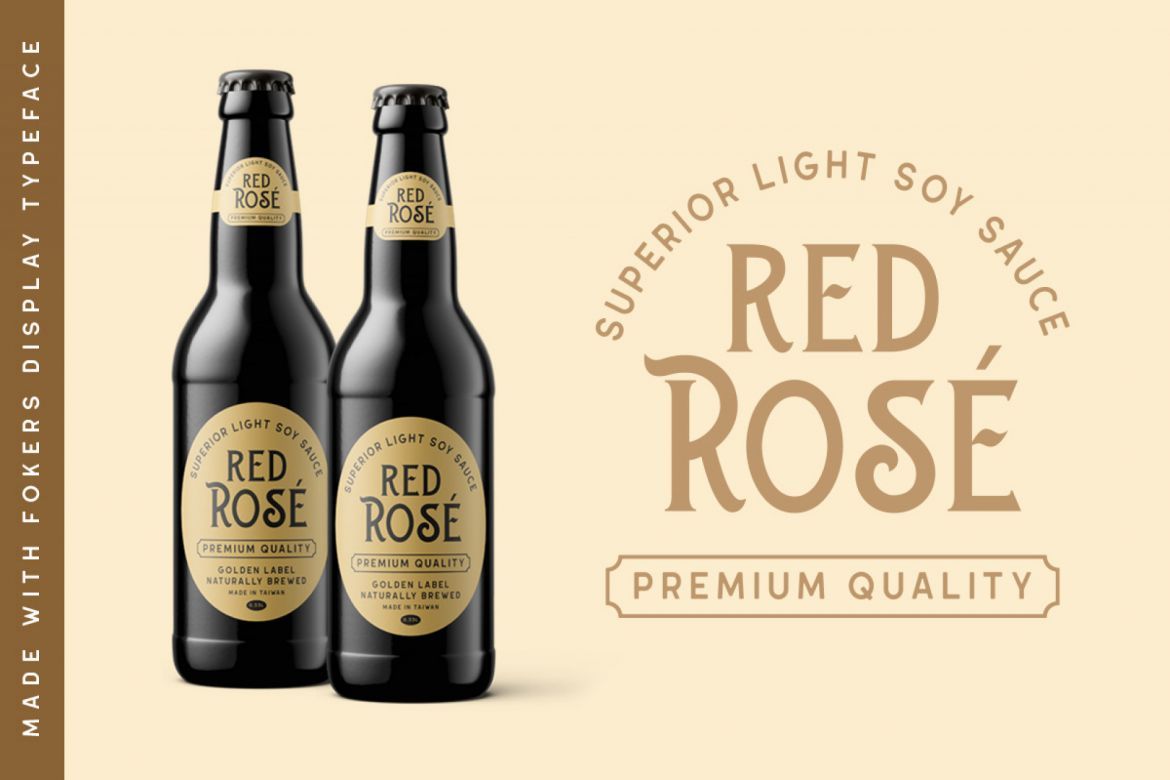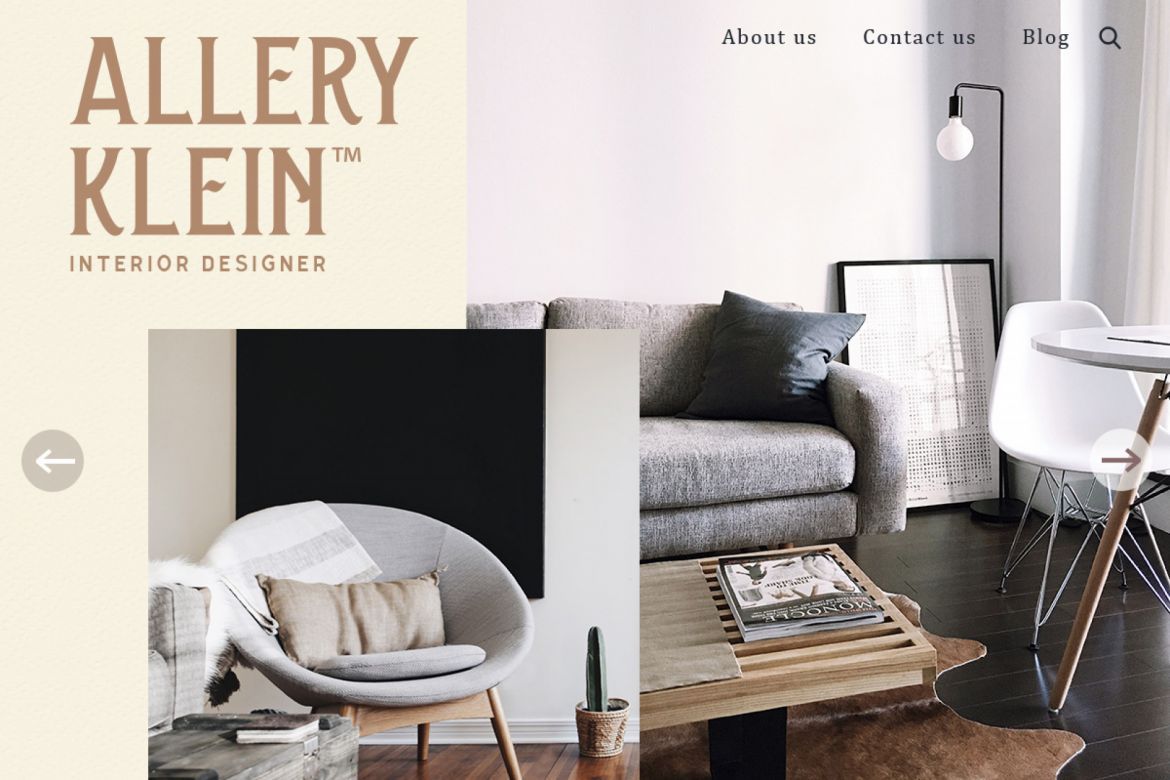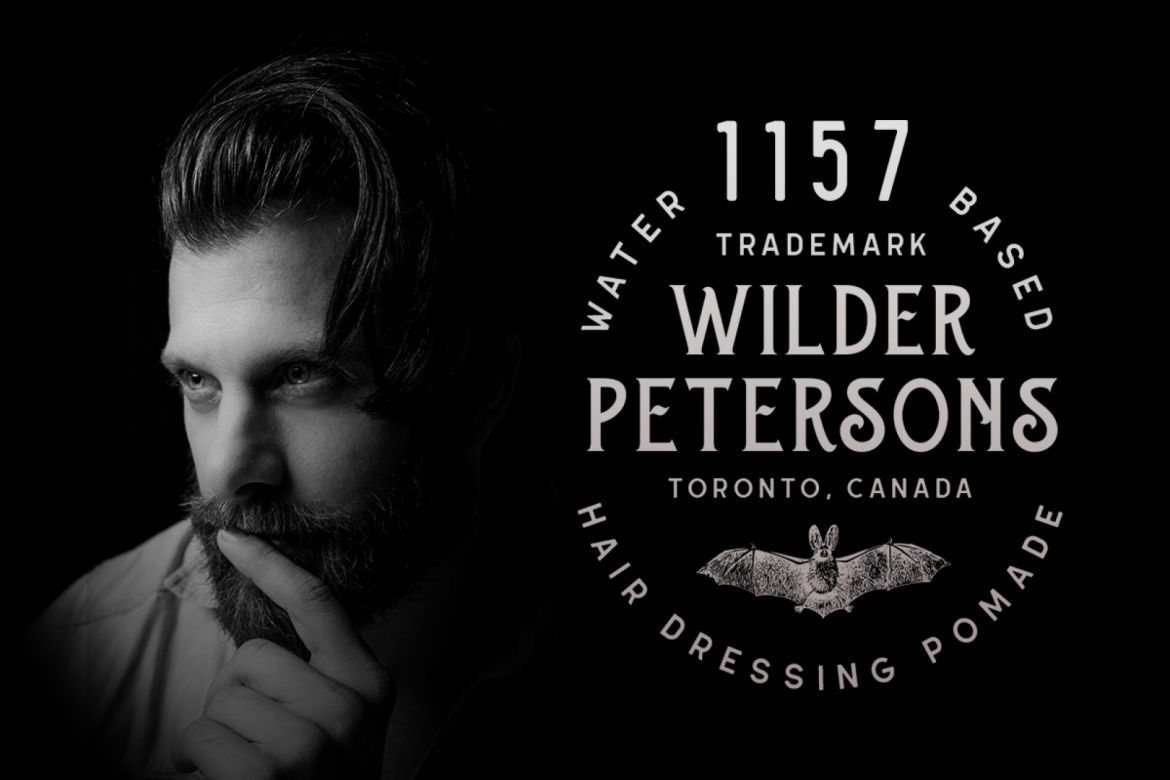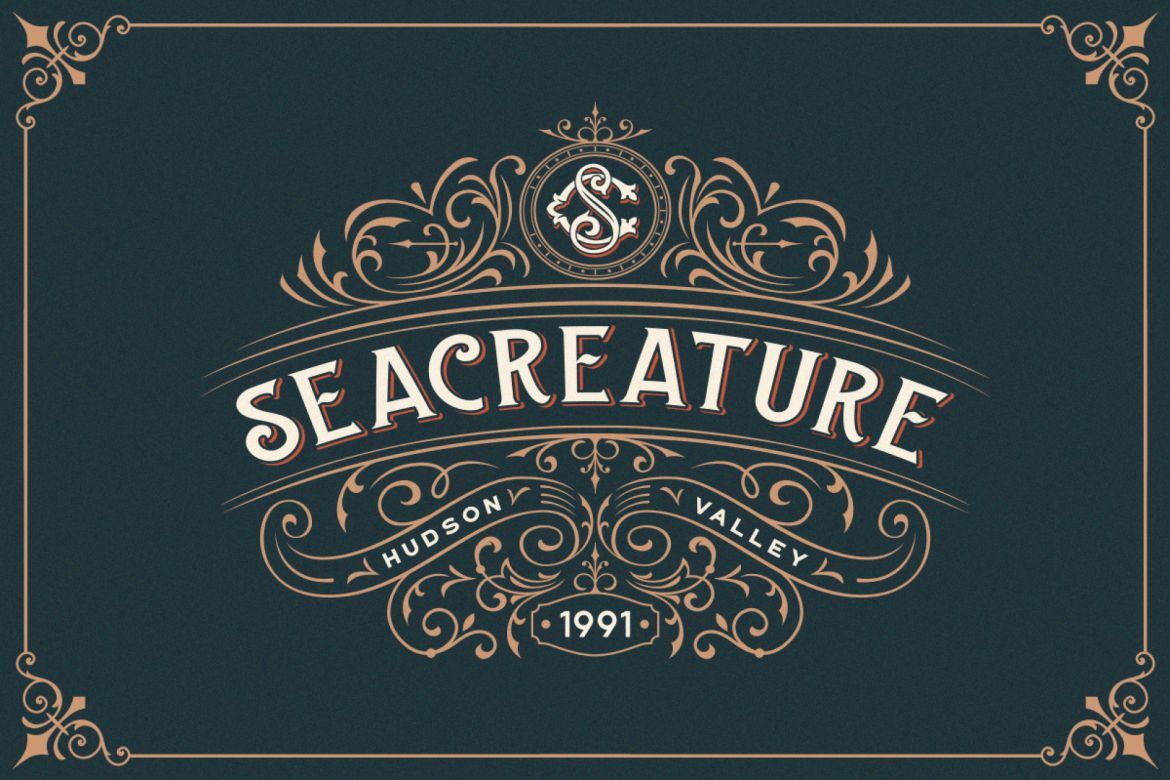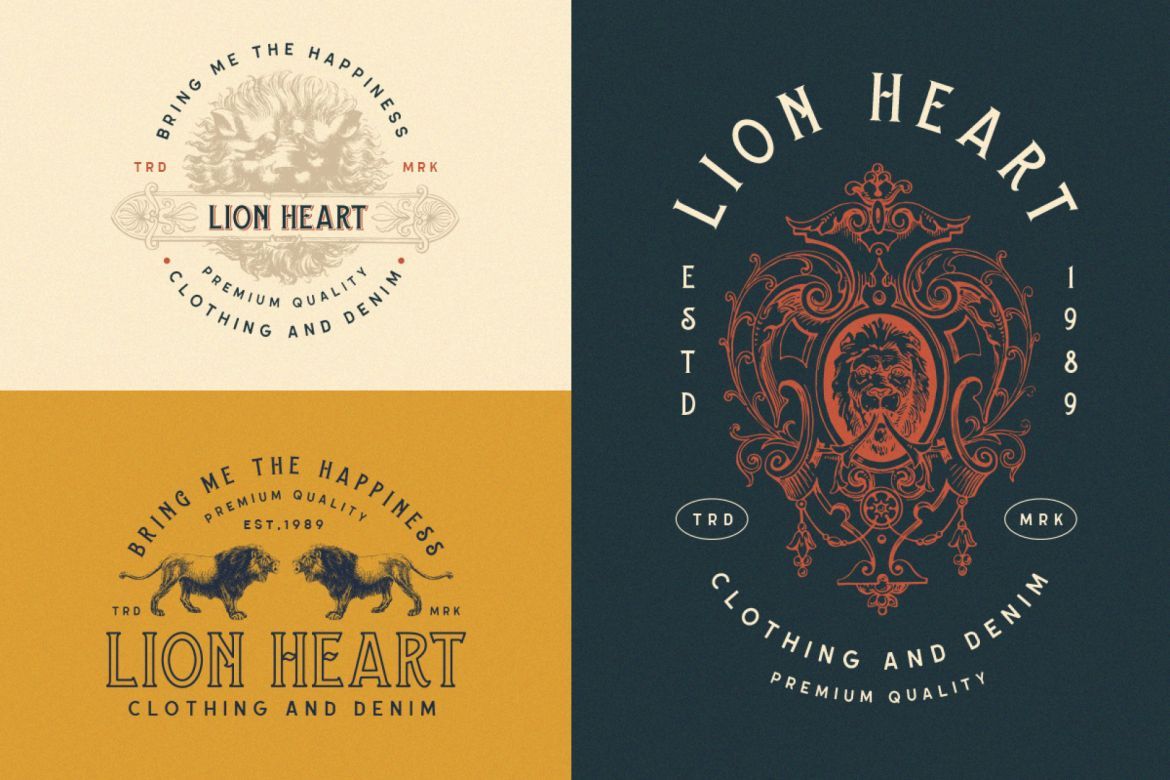
Fokers - Display Typeface
• replacement for set styles, ligature, etc. also supports multilingual.
• works perfectly for those of you who need fonts for titles, logos, clothing, invitations, branding, packaging, advertisements, etc.